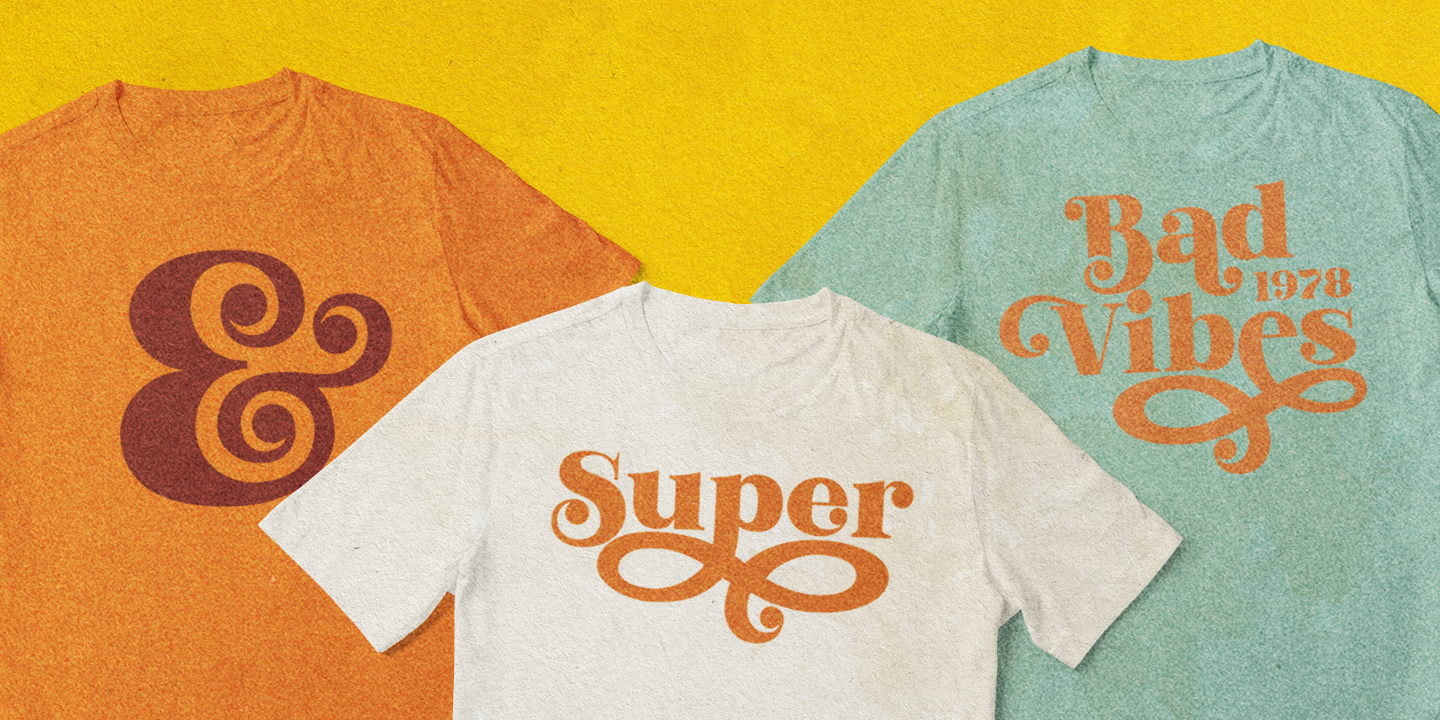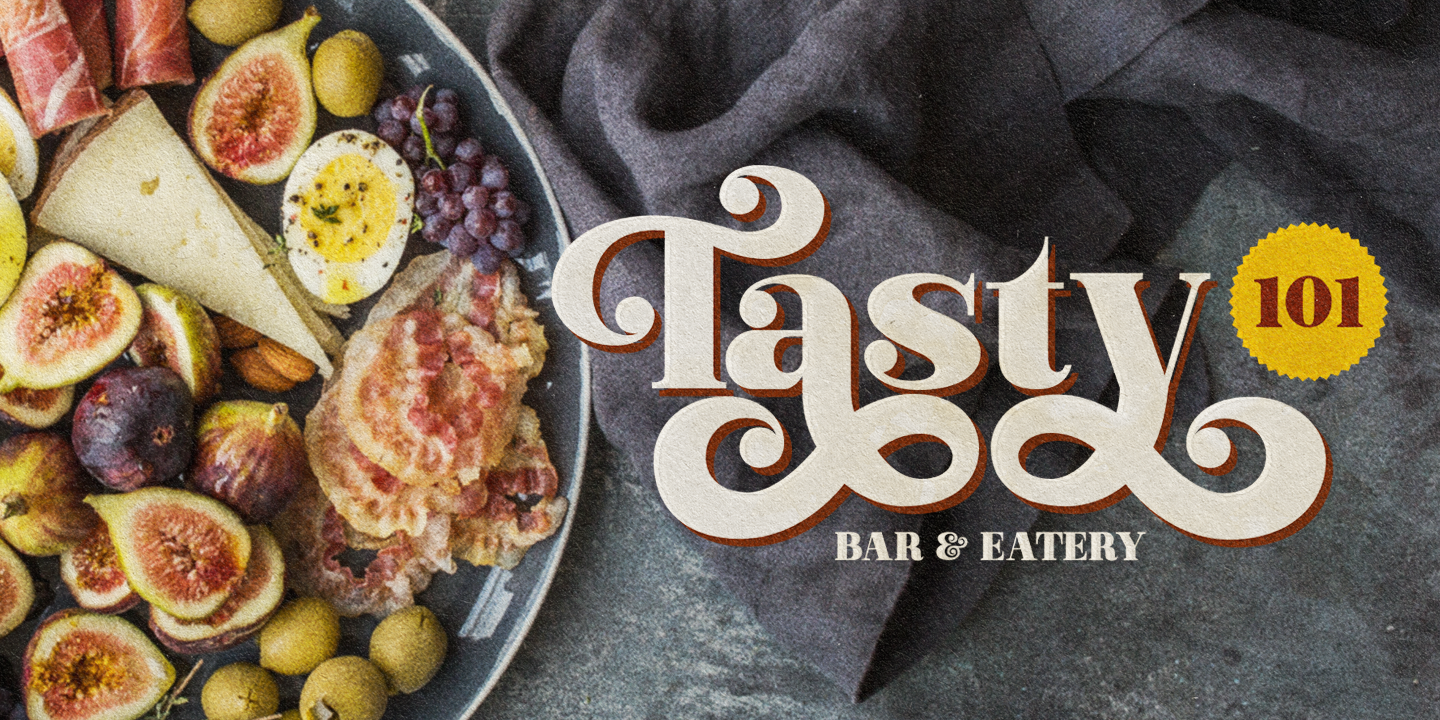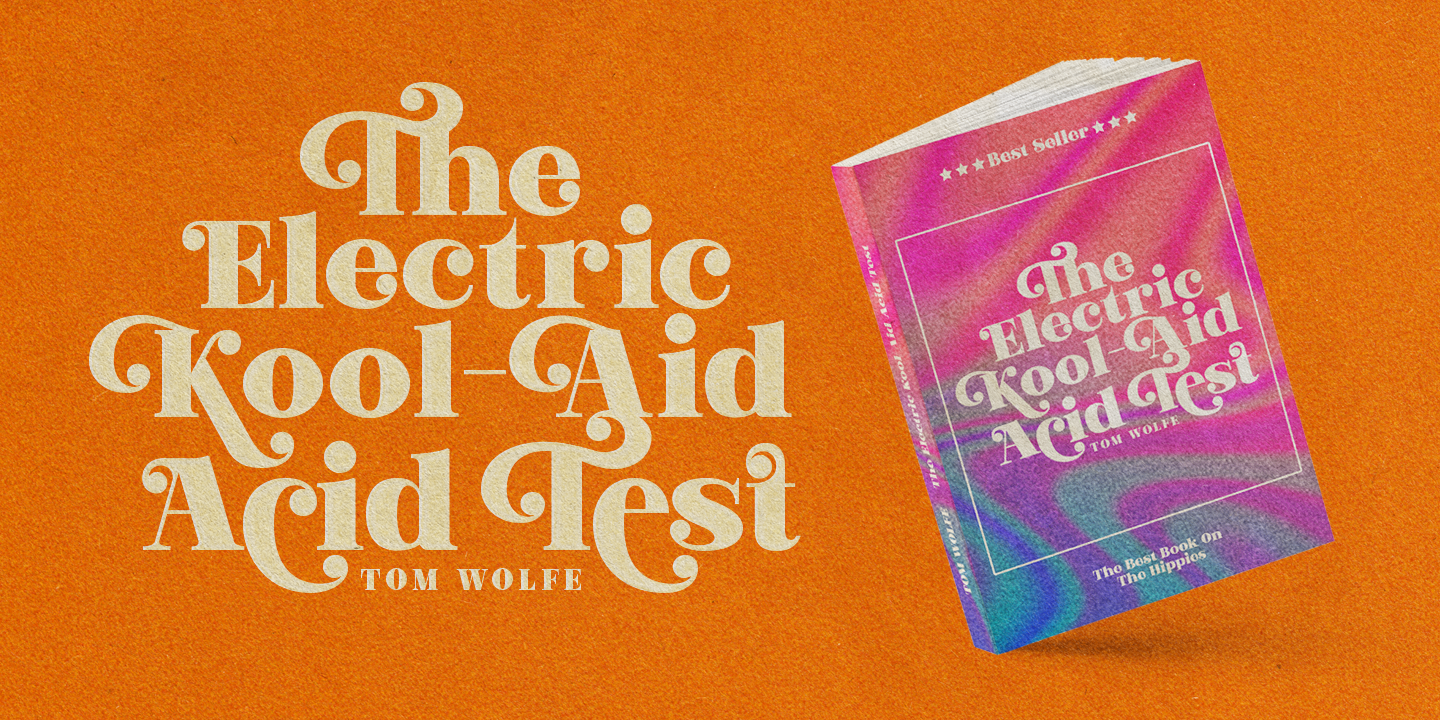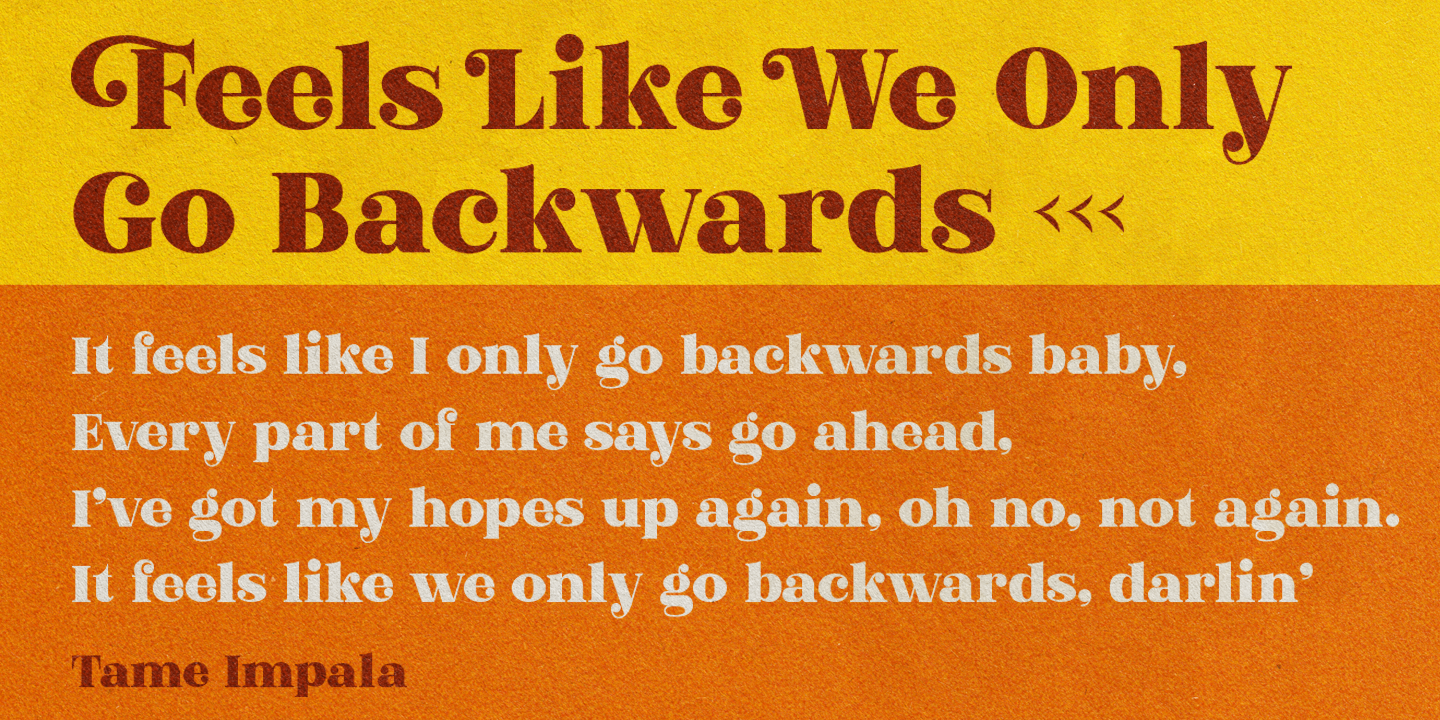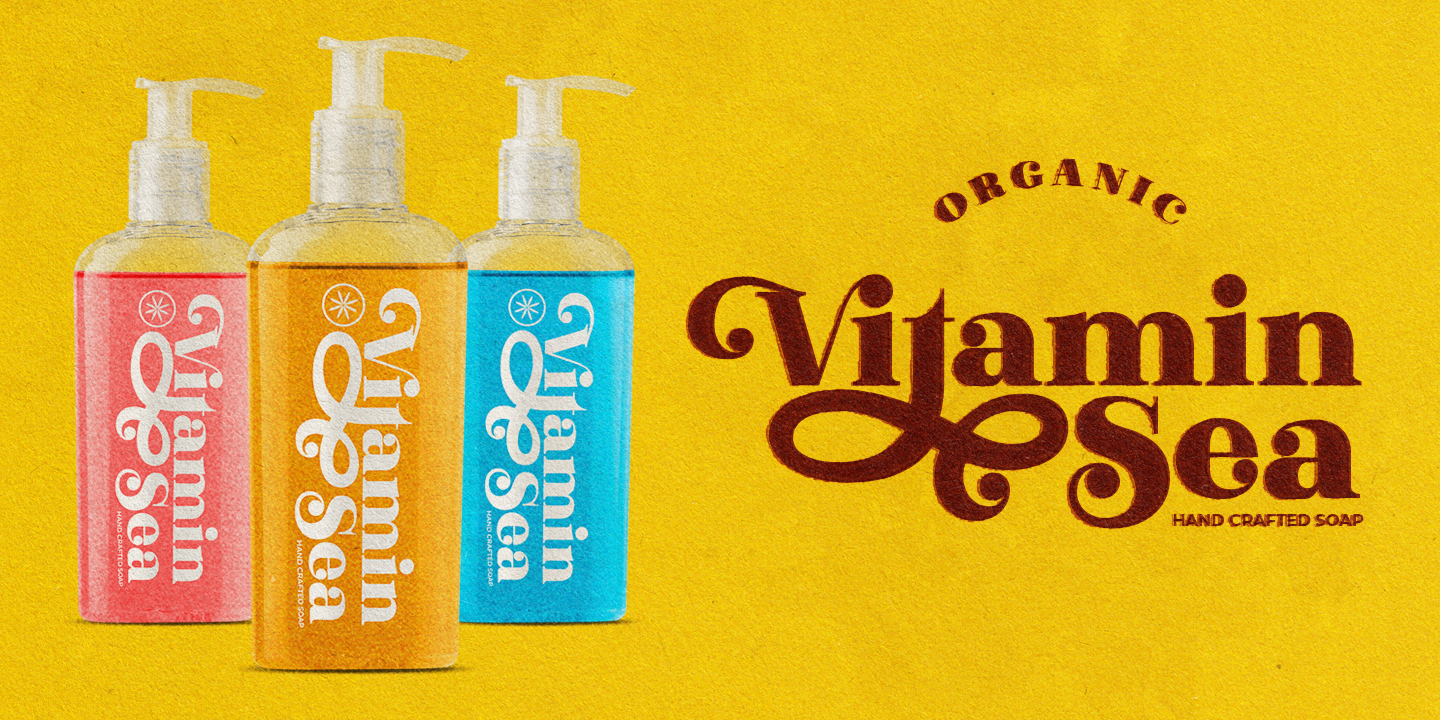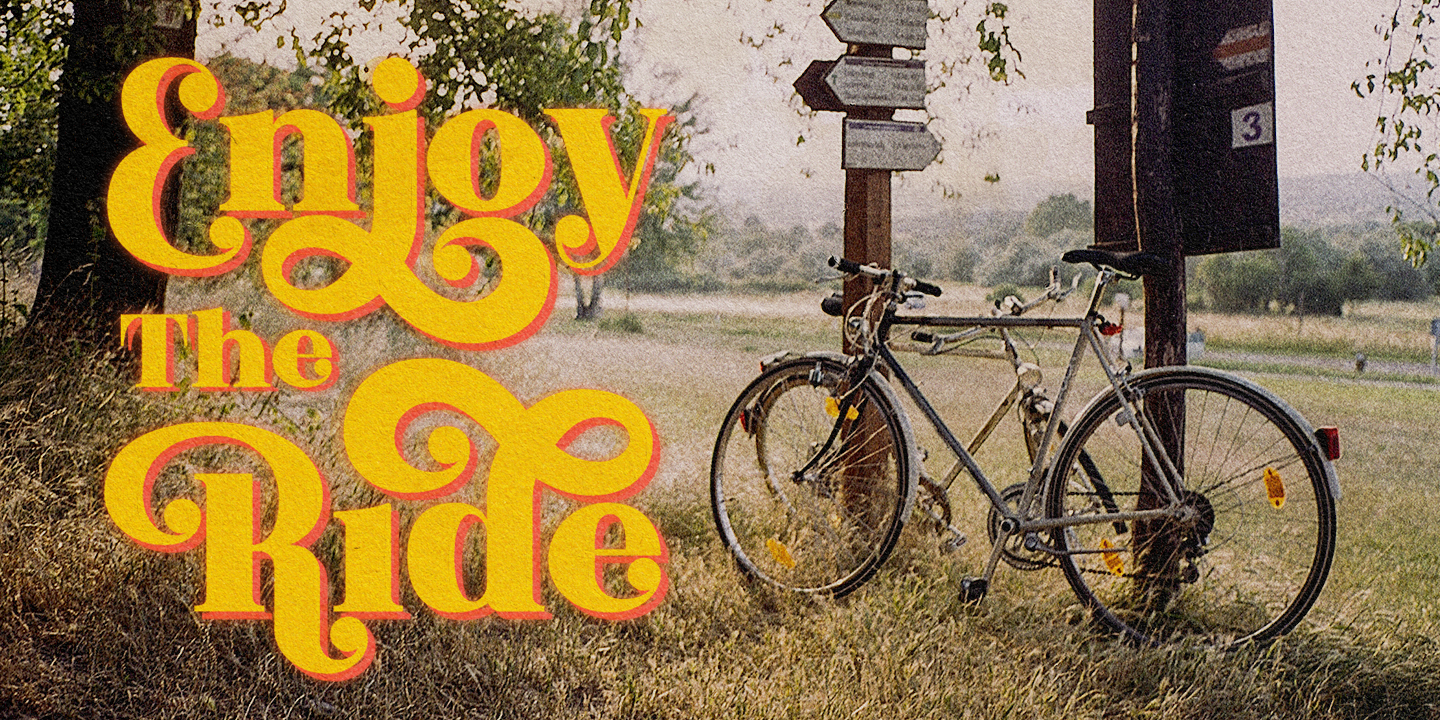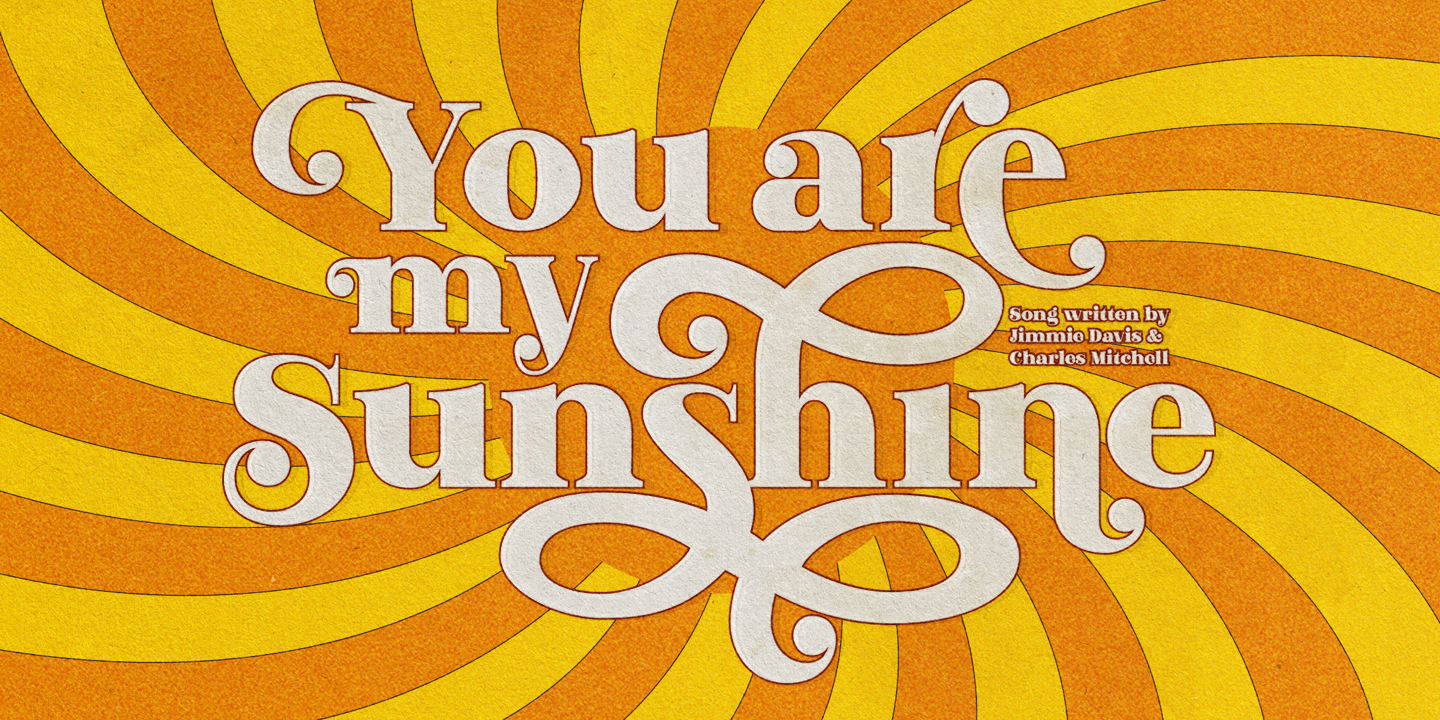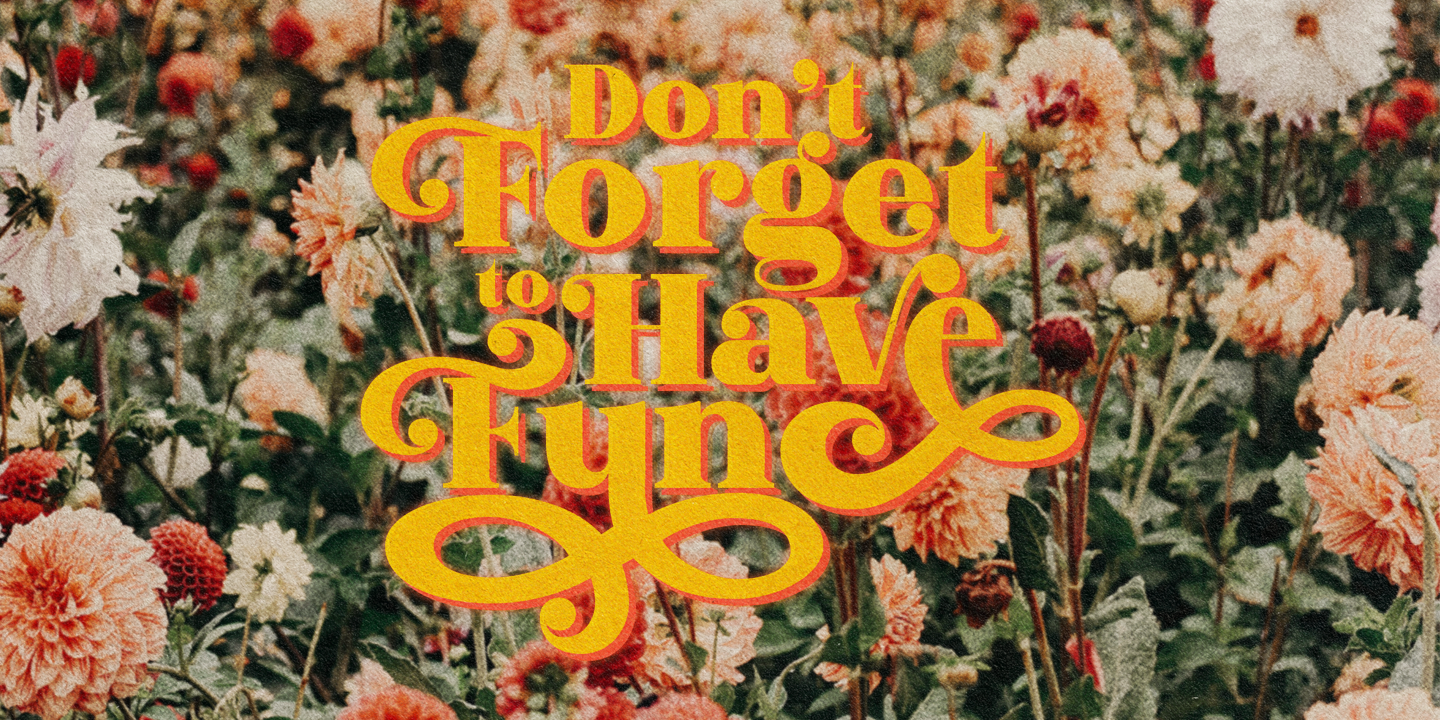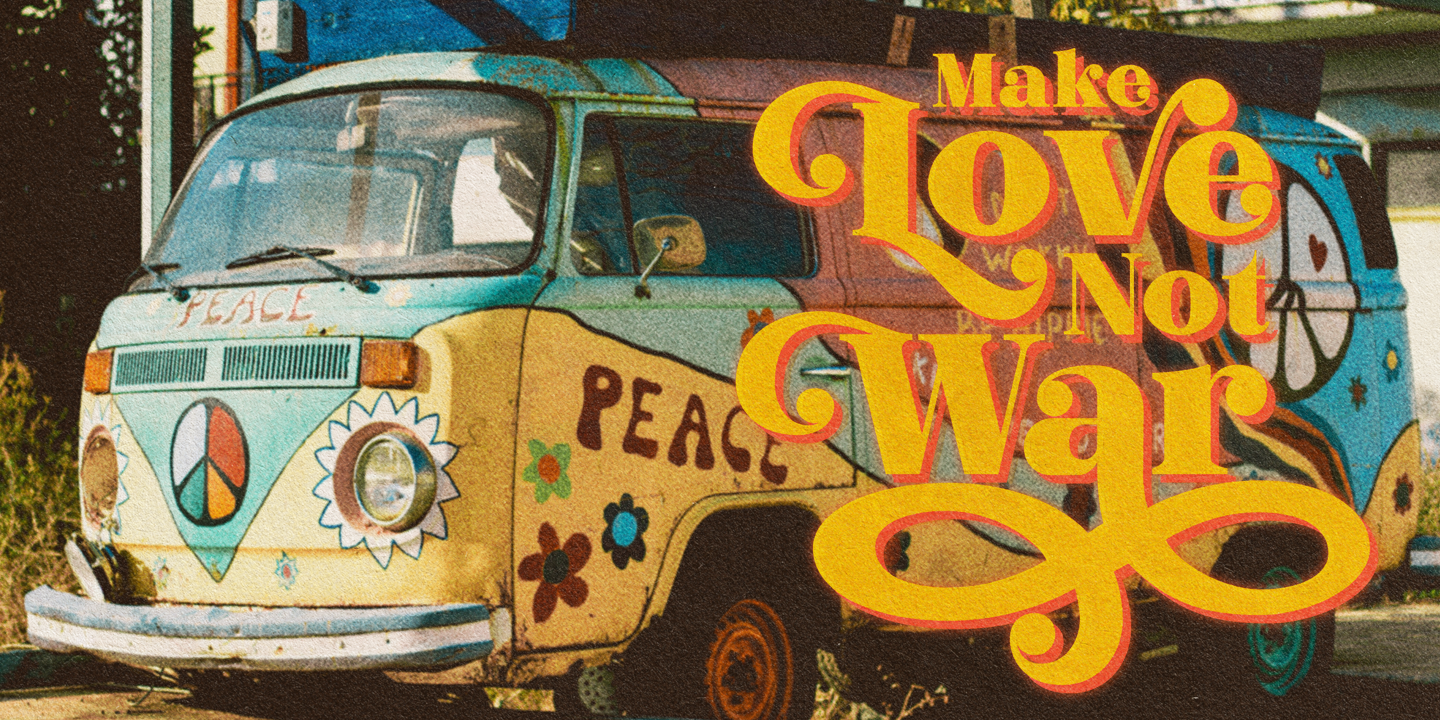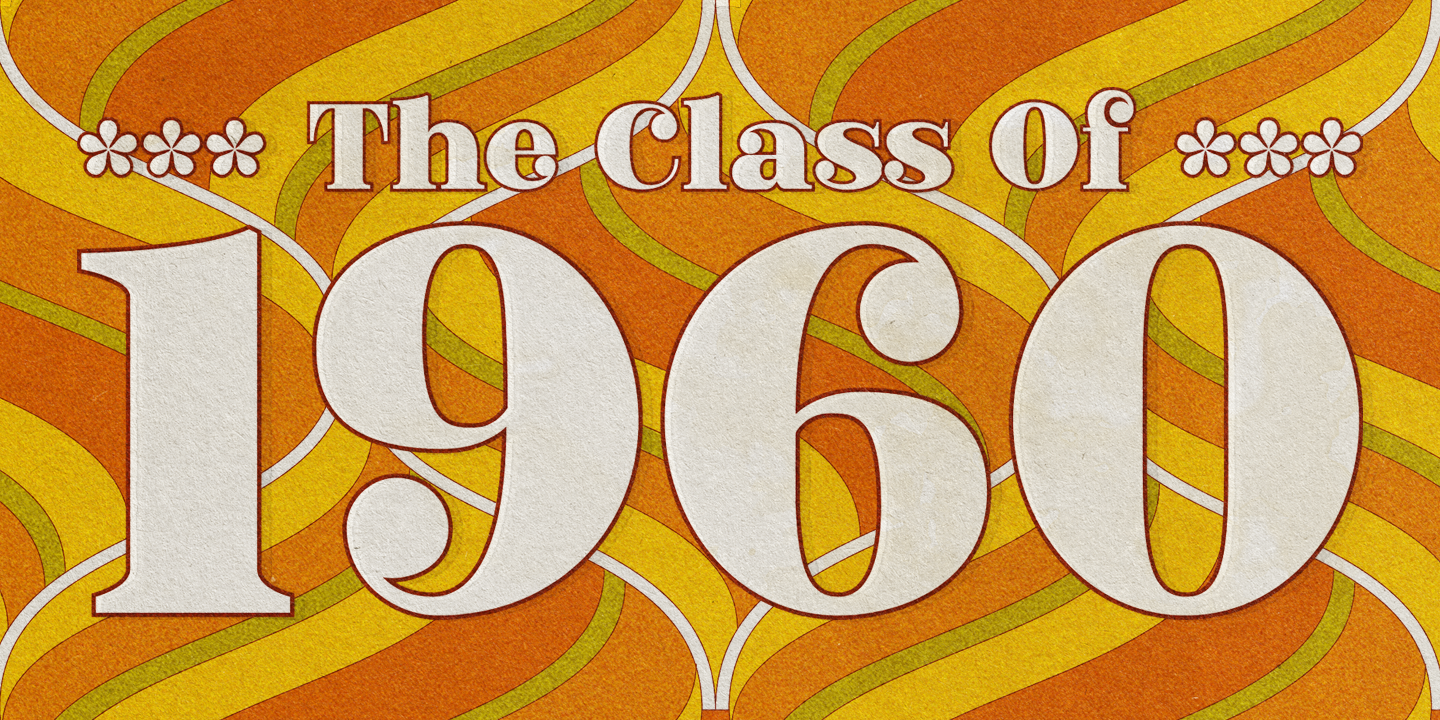
Introducing a new elegant retro display typeface called The Beardy Inspired from serif didone combine with flourish typography and 60s-70s pop culture. The Beardy came with open type features such stylistic alternates, stylistic set 01-18, & ligatures. The Beardy typeface mainly intent for logo, headings, branding, magazine, cover album, book cover, movie, apparel design, quotes, invitations, flyer, poster, greeting cards, product packaging, printed quotes, etc